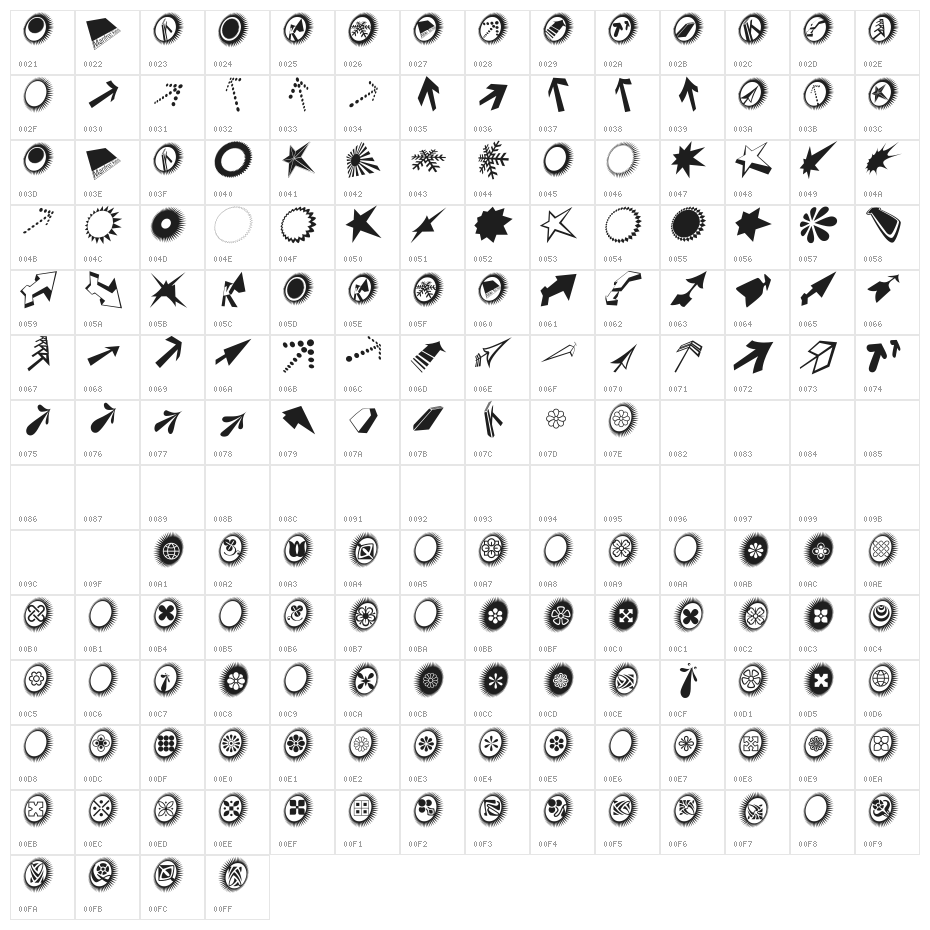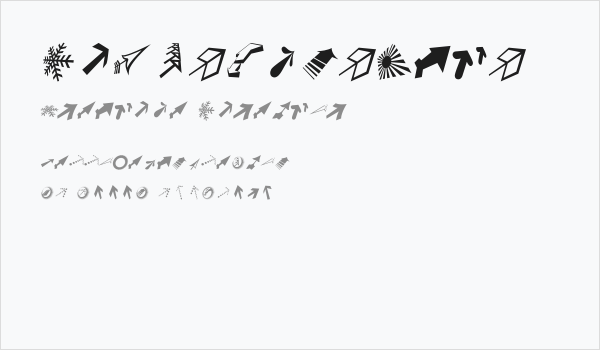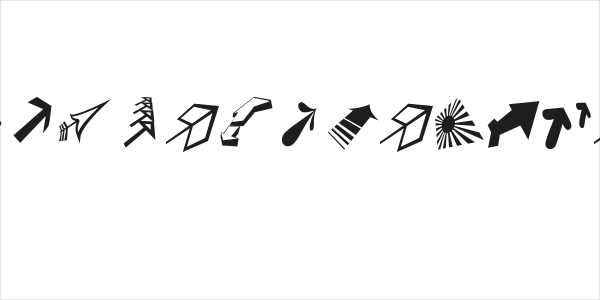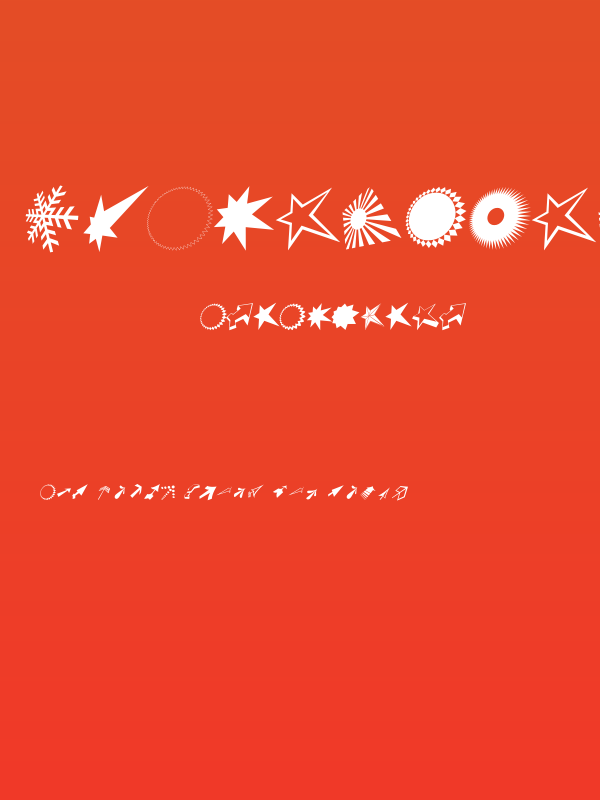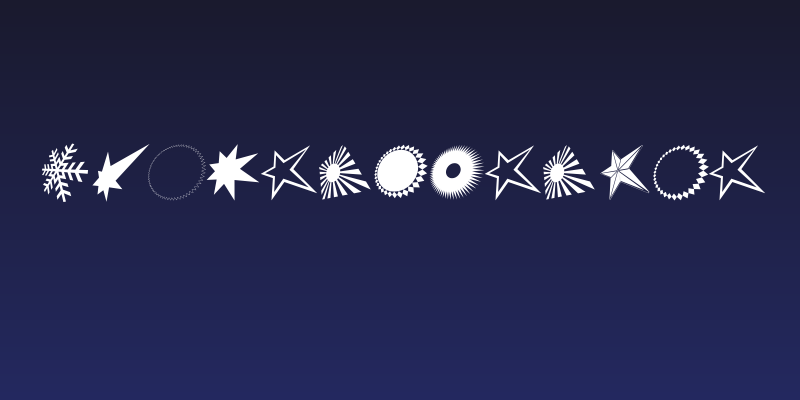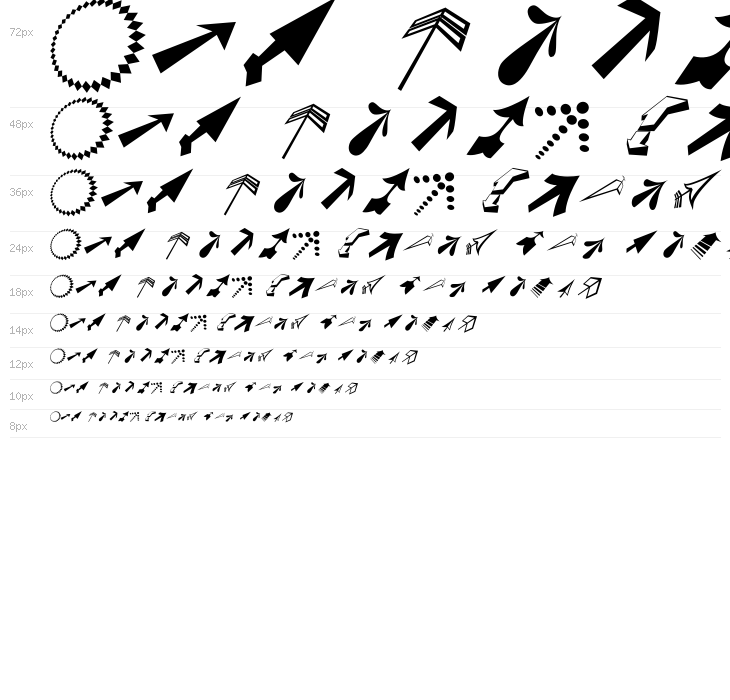
DingsbumsBats Font
DingsbumsBats Description
A collection of bold, black-and-white dingbat symbols featuring stars, bursts, arrows, dotted lines, and geometric shapes. The glyphs are highly stylized and decorative, with a mix of sharp, jagged edges and rounded forms. Each character is unique and visually distinct, designed for use as icons or graphic elements rather than text.
Overall StyleDecorative, Playful, Graphic
Use CaseIcons, Visual accents, Graphic design elements
Proposed ProjectsInfographics, posters, signage, web icons, creative layouts, educational materials.